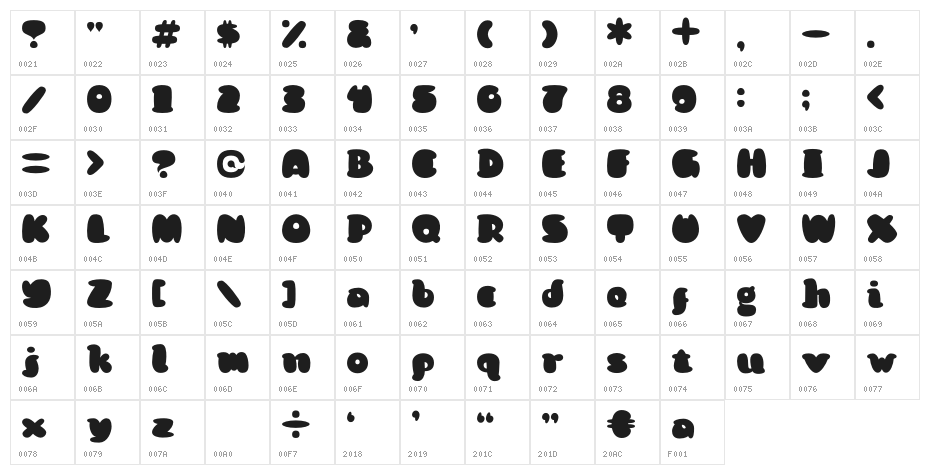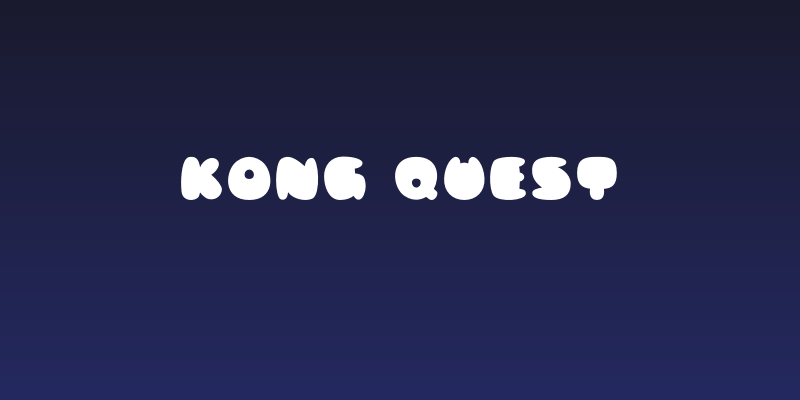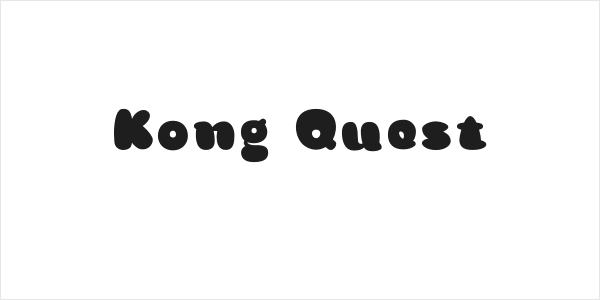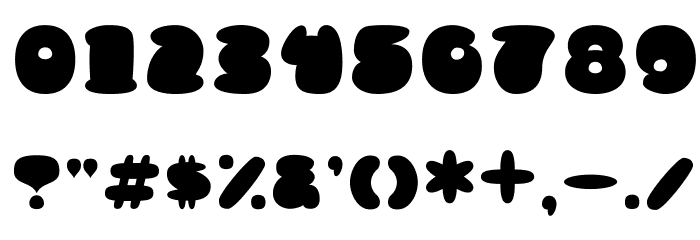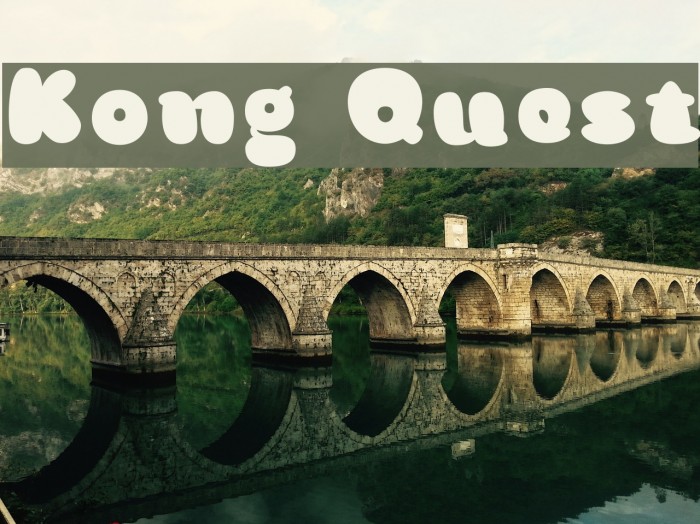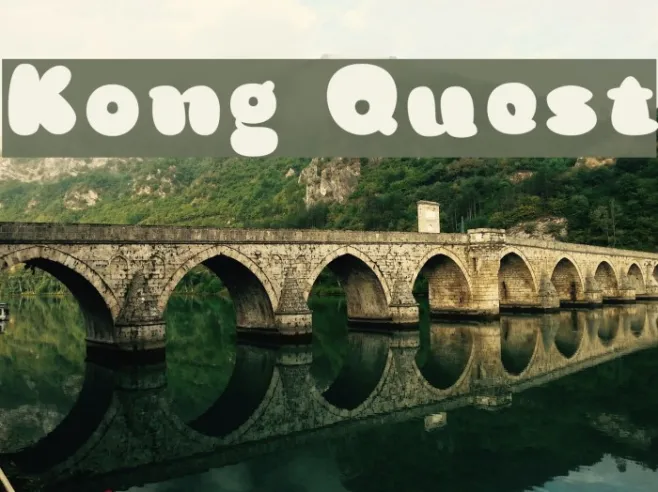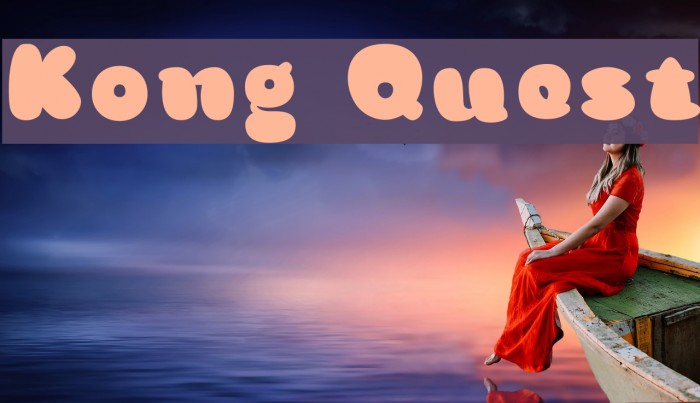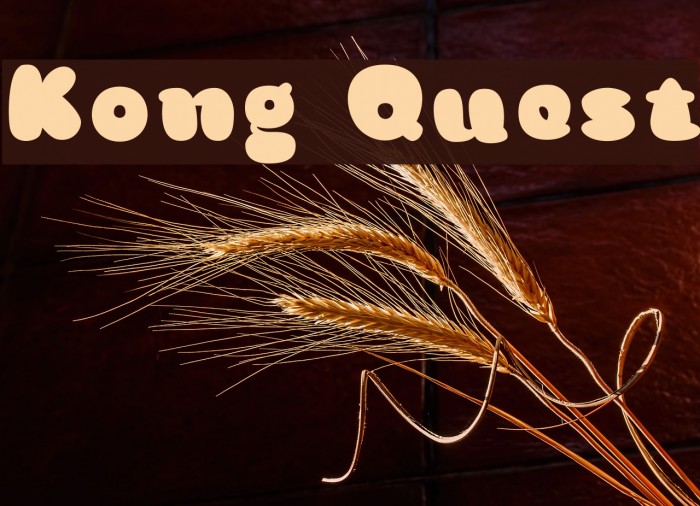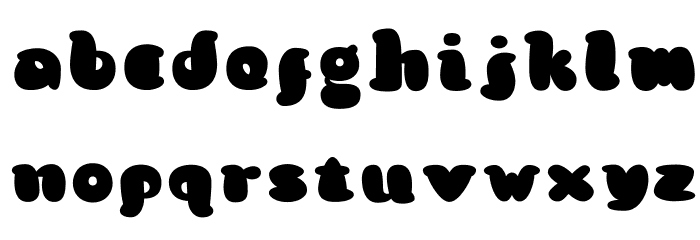
Kong Quest Font
Kong Quest Description
This playful and bold font features rounded, bubble-like characters that exude a sense of fun and whimsy. The letters are thick and substantial, with a consistent weight throughout, giving them a strong presence. The rounded edges and lack of sharp angles contribute to a friendly and approachable aesthetic. The font maintains a uniform width across all characters, ensuring a balanced and cohesive look. Its unique style makes it ideal for projects that require a touch of creativity and lightheartedness. The characters are evenly spaced, providing a clean and organized appearance. This font is perfect for capturing attention and adding a playful element to any design.
| Proposed Projects | Ideal for children's books, playful branding, party invitations, and creative posters. |